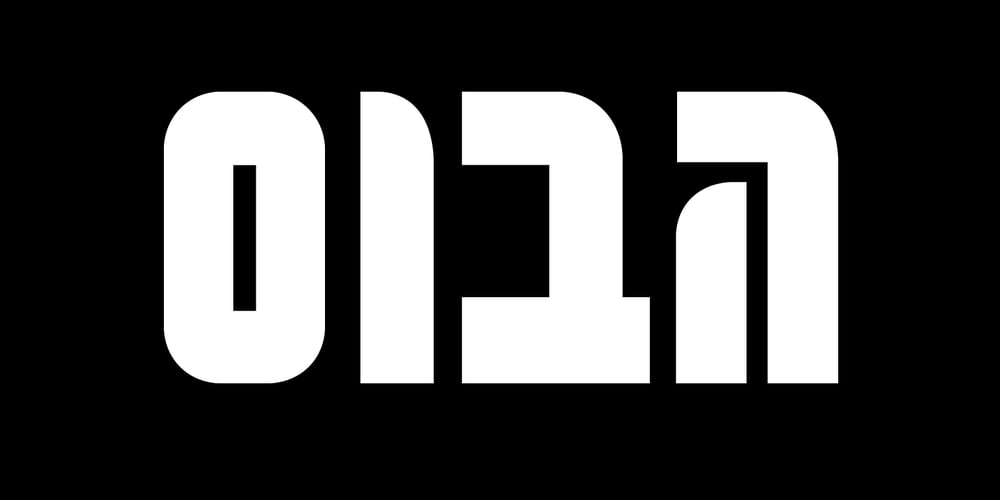
Dizel MF Font Family was designed by Dor Cohen and published by Masterfont. Dizel MF contains 1 styles and family package options. The robust impression of these titles will sure leave no doubt as to how serious this book is.